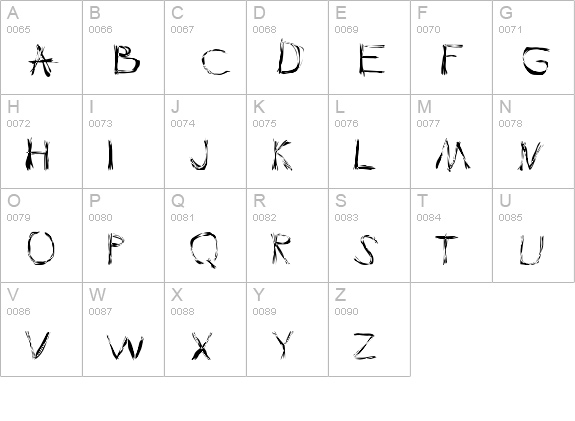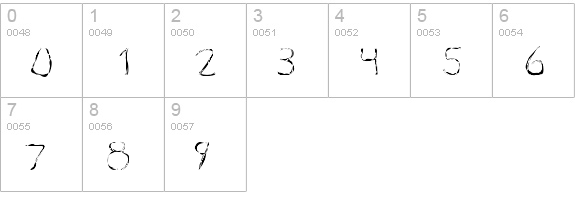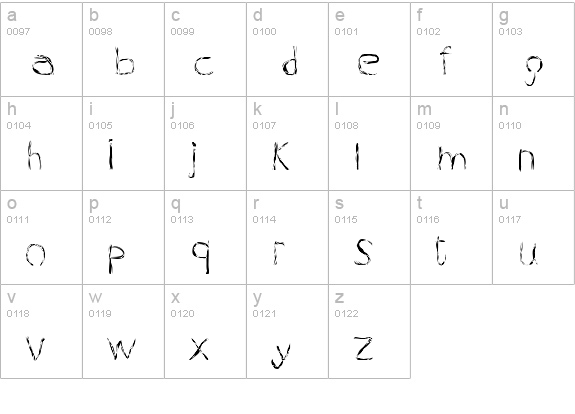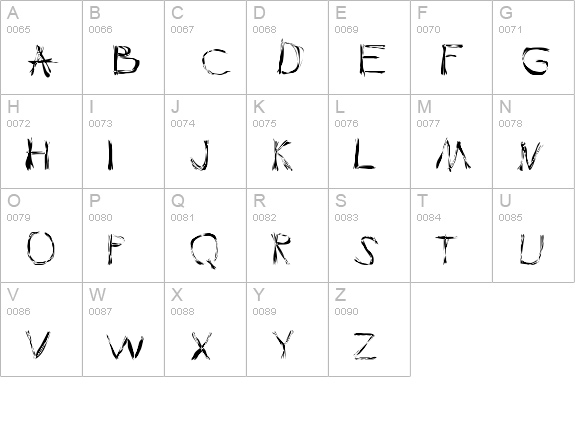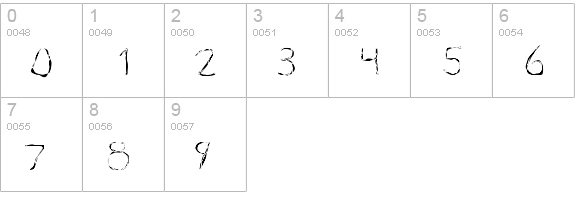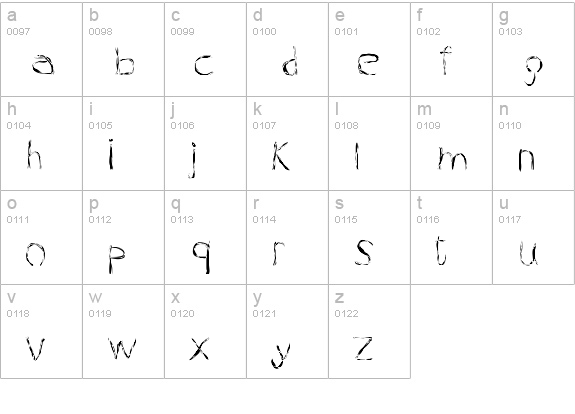
PleasureGelf Font Details
PleasureGelf font is a whimsical and playful typeface that will bring joy and creativity to your designs. Its unique curves and quirky characters make it perfect for projects that need a touch of fun and personality. With its free-spirited vibe, PleasureGelf font is sure to make a statement and capture the attention of your audience. The best part? PleasureGelf font is freely available to download at FontsMarket.com, so you can start using it in your projects right away. Whether you're designing a poster, creating a logo, or working on a branding project, PleasureGelf font will add a playful touch that sets your work apart. Download it now and let your creativity shine with PleasureGelf font!